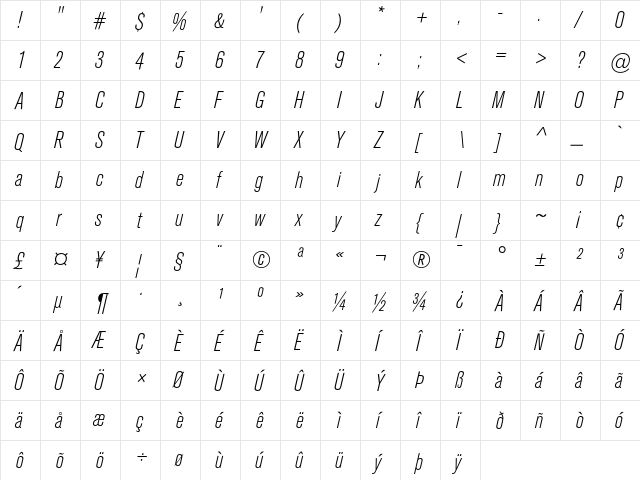
Akzidenz-Grotesk BQ Light Condensed Italic Font Preview
Design Context for Akzidenz-Grotesk BQ Typeface
Akzidenz-Grotesk BQ has the quiet confidence of well-executed sans-serif typography: versatile, unobtrusive, and dependable at any size. The dynamic lean of this cut emphasises speed and emphasis in any layout. Its slender proportions lend an understated elegance to any composition. The condensed width makes it efficient for tight spaces without sacrificing legibility.
A natural fit for high-end product packaging, luxury brand identities, and refined web typography.
Font Pairing: Pair Akzidenz-Grotesk BQ with a medium or bold serif for headlines — the weight contrast creates an elegant, high-end feel.
Pro Tip: Use Akzidenz-Grotesk BQ tightly set in headlines and banners — its condensed proportions make it ideal for maximum impact in minimum horizontal space.